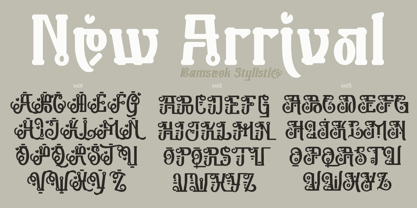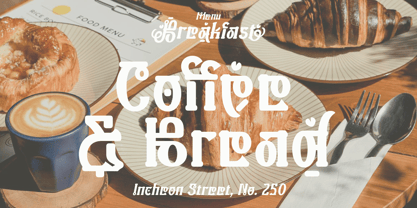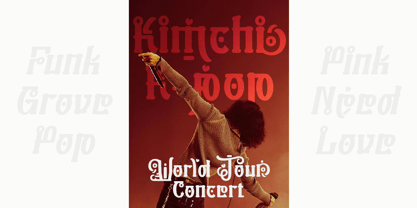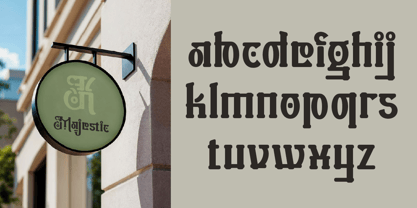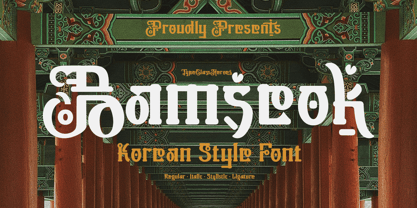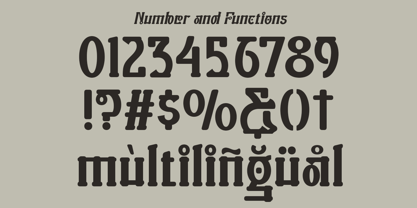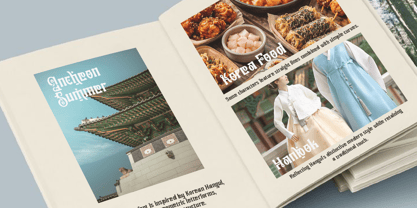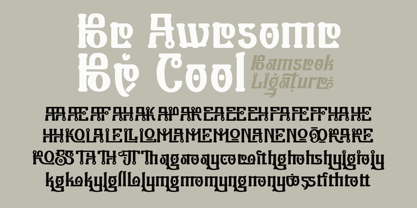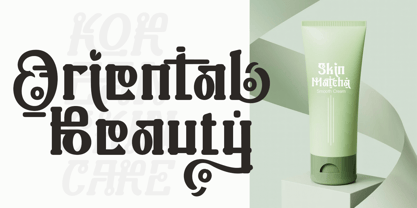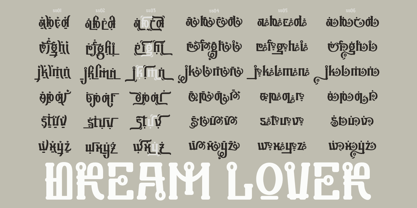
Bamseok
by TypeClassHeroes
The Bamseok Font Family was designed by Suandana ipandemade and published by TypeClassHeroes. Bamseok contains 2 styles and family package options. More about this family
Introducing Bamseok, this decorative font is inspired by Korean Hangul, evident in its bold, geometric letterforms, with a bold, rhythmic structure. Some characters feature straight lines combined with simple curves, reflecting Hangul's distinctive modern style while retaining a traditional touch. Furthermore, small decorative details on some letters create a unique and artistic feel, making this font not only functional but also aesthetically appealing. This font is ideal for Korean-themed branding, such as Korean restaurants, cafes, K-food products, K-beauty products, and even K-pop merchandise. It's also ideal for posters, logos, social media content, and creative designs that want to showcase a modern, trendy feel and unique Korean culture.
Designers: Suandana ipandemade
Foundry: TypeClassHeroes